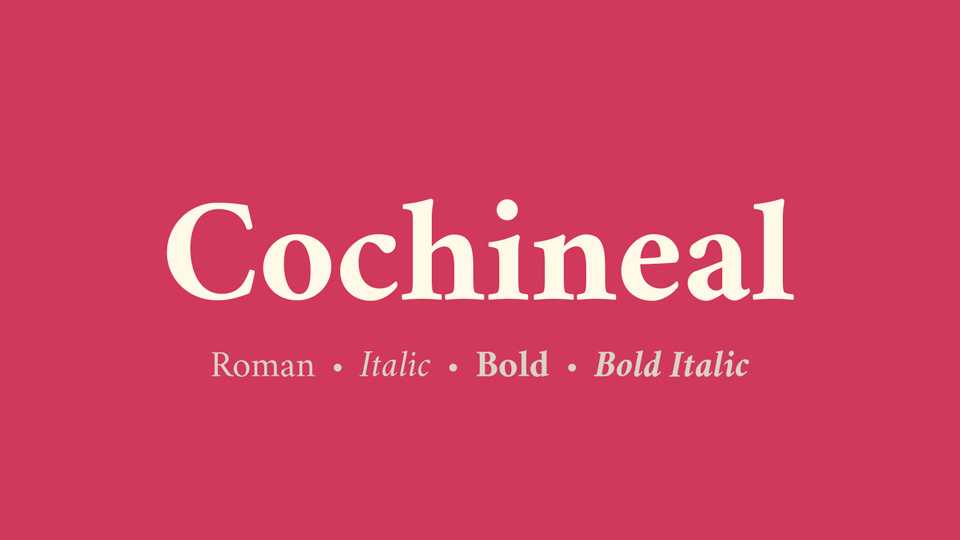
Download Cochineal typeface, a serif font family in two weights and Italics, a fork of Crimson, a remarkable creation of Sebastian Kosch inspired by old-style font designers.